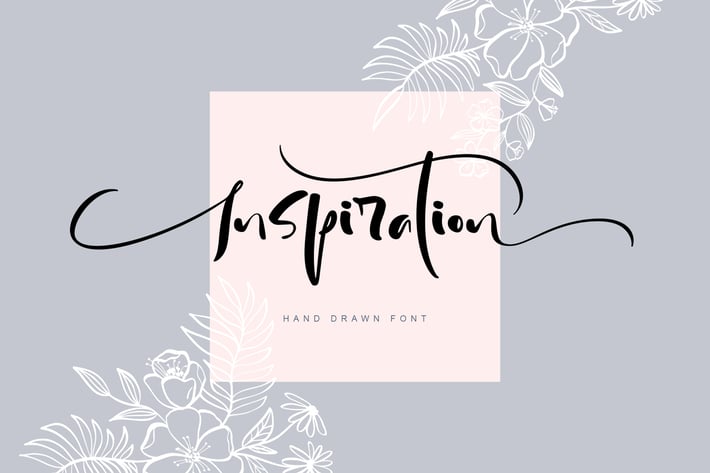
Inspiration Hand Drawn Font
Unique handmade calligraphic Inspiration Hand Drawn Font is modern display font with alternative flourish lowercases and alternative uppercases.
Inspiration Hand Drawn Font is beautiful instrument for designers, blogers and everybody who loves handwritting calligraphy, for fans of puzzles and flowery flourish whorls and other people, who loves beauty and elegance.
Titles and script text for wedding albums, invitations, table cards, logo, icon, hand drawn phrases or quotes for greeting cards (Christmas, Valentine`s Day, Mother`s Day, Easter, Birthday and other holidays), calligraphy photo overlay, short phrases, gift shops tag, presentation in social media Pinterest or Instagram.